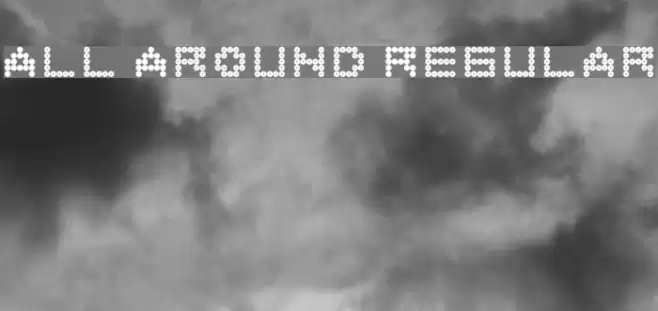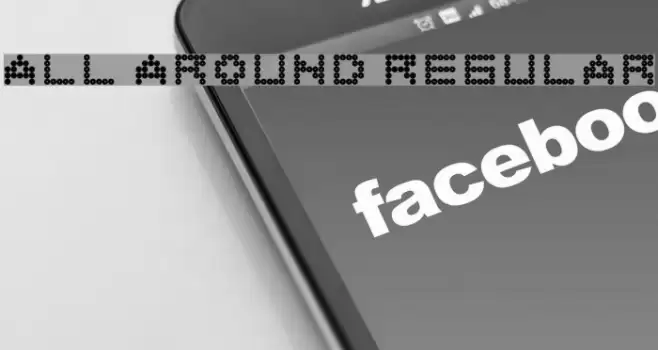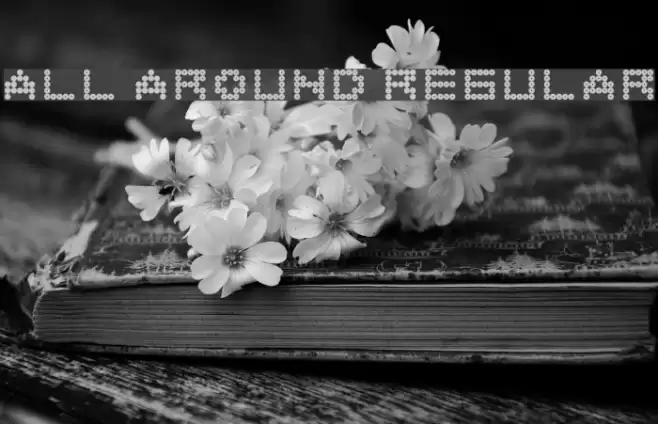
All Around Regular Font
All Around Regular Description
This font features a unique design composed of small, evenly spaced dots forming each character. The geometric arrangement gives it a modern and digital feel, reminiscent of LED displays or dot matrix printers. The uniformity of the dots creates a consistent texture across all characters, making it visually striking and easily recognizable. The font maintains a balanced structure, with each letter and number clearly defined, ensuring legibility despite its decorative style. The special characters are crafted with the same dotted pattern, seamlessly integrating with the rest of the typeface.
A modern, dot-based font with a digital, geometric style from Uncategorized fonts.
- Proposed Projects: Ideal for digital displays, tech-themed designs, posters, and creative branding projects.